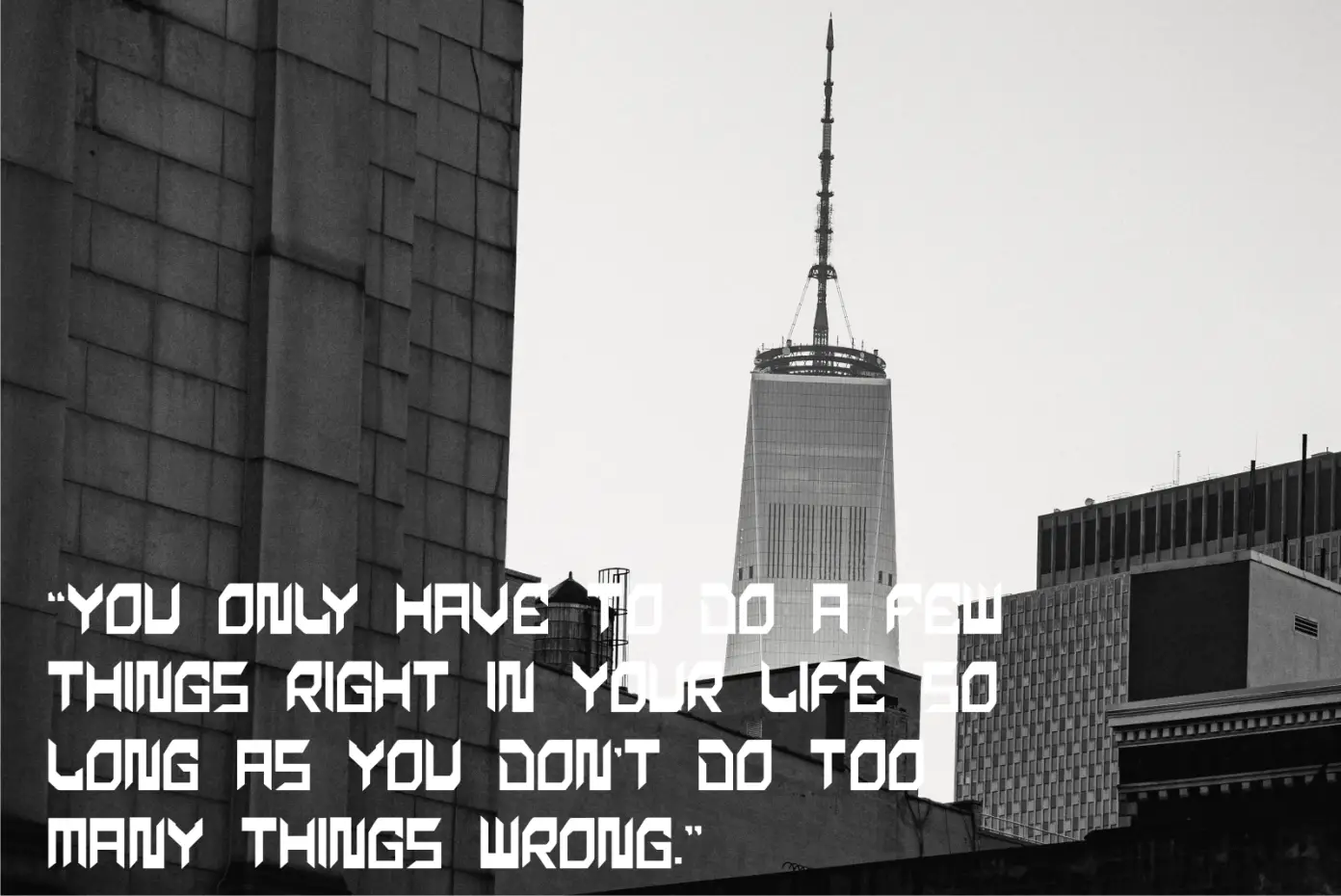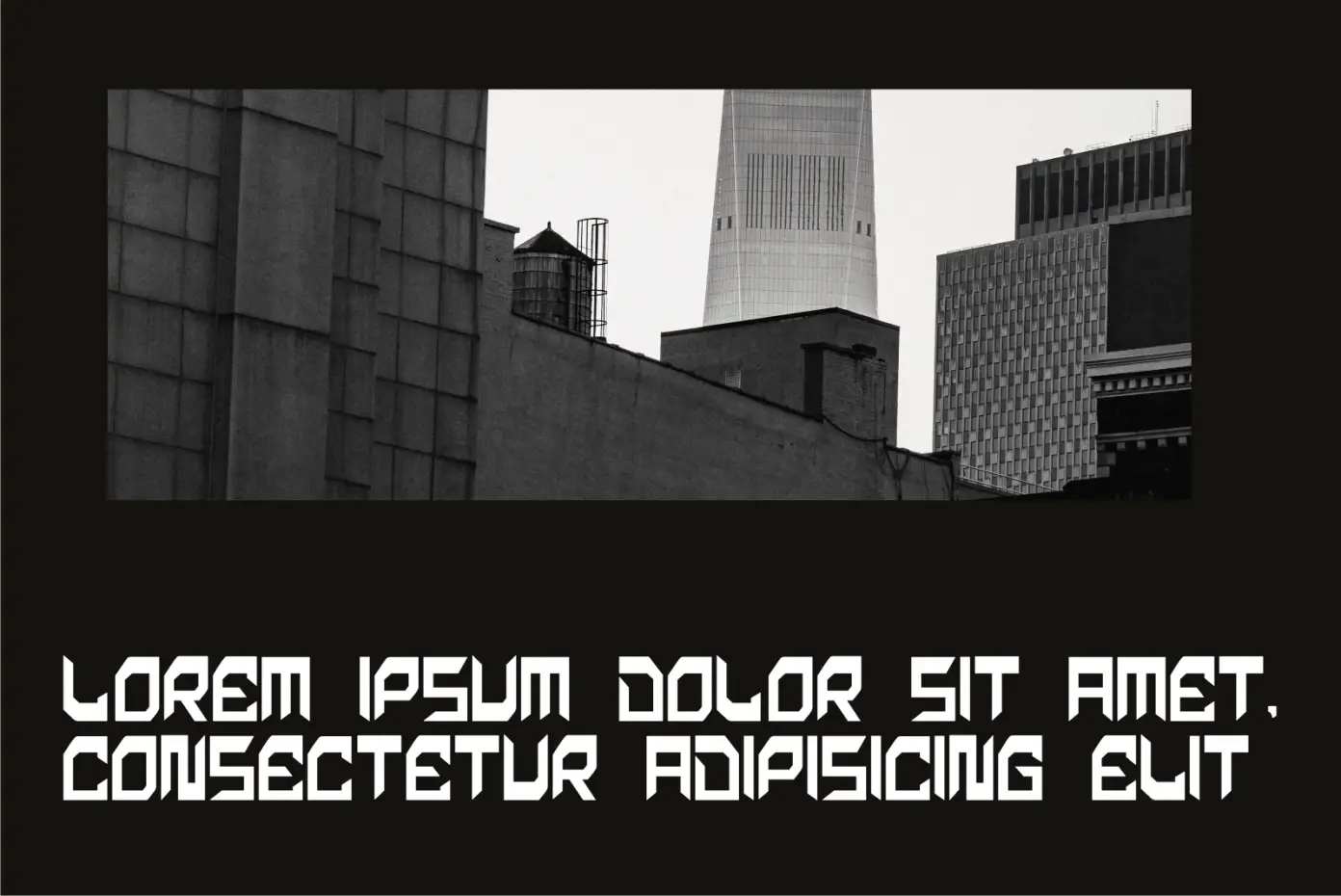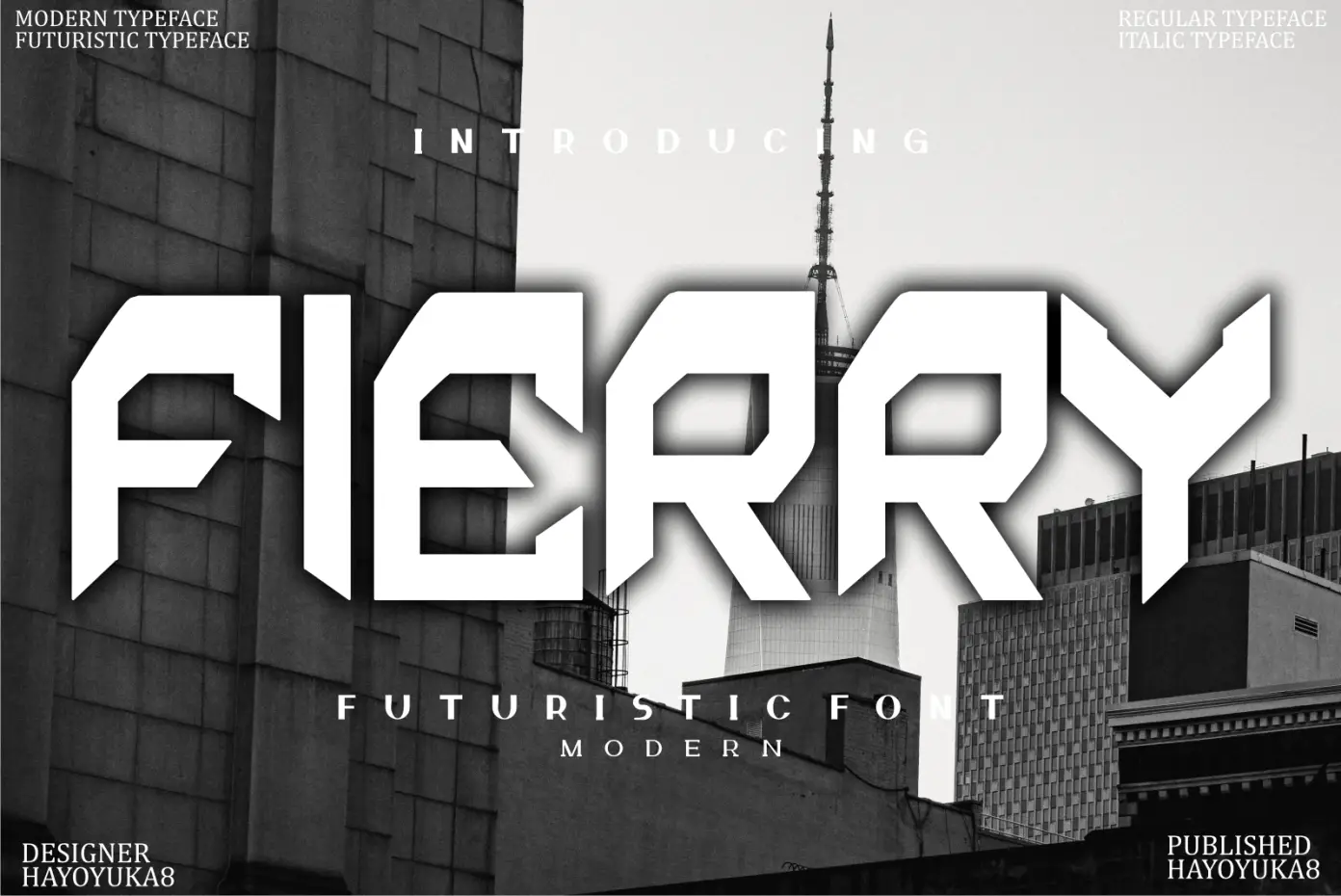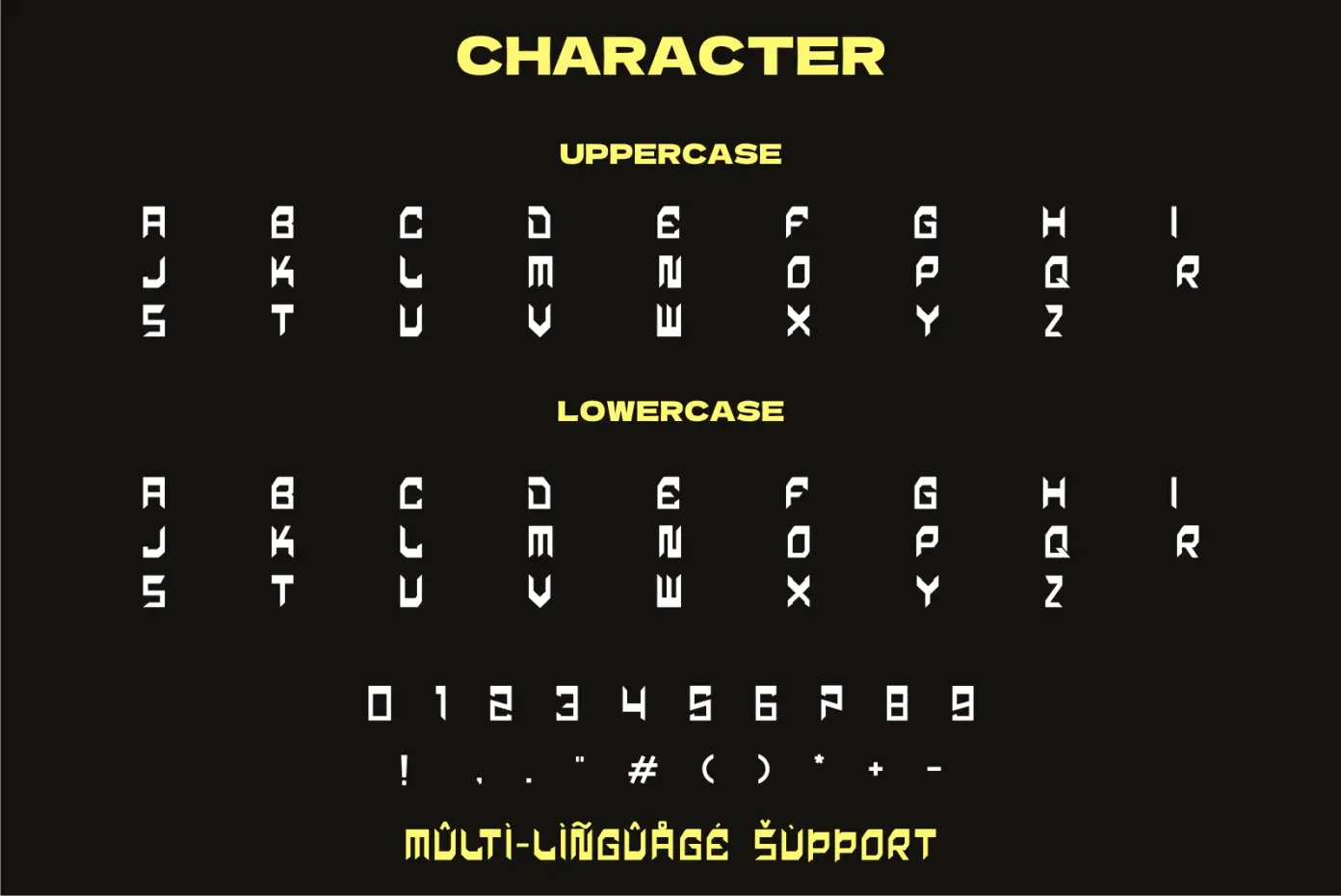
Fierry Display Font
The Fierry Display Font is a captivating typeface designed to make a bold statement. With its unique character shapes and striking appearance, this font is perfect for branding, logos, and eye-catching headlines.
• Ideal for use in branding projects, promotional materials, and digital content.
• Best suited for large text applications where its distinctive features can shine.